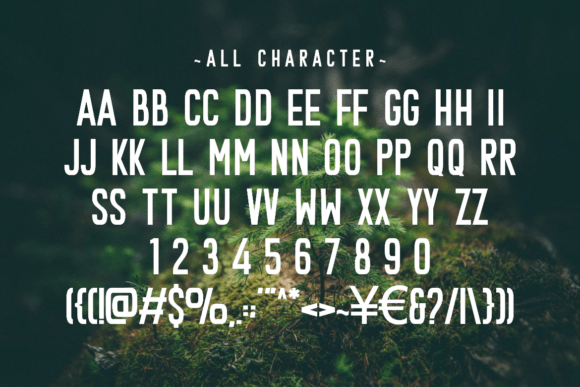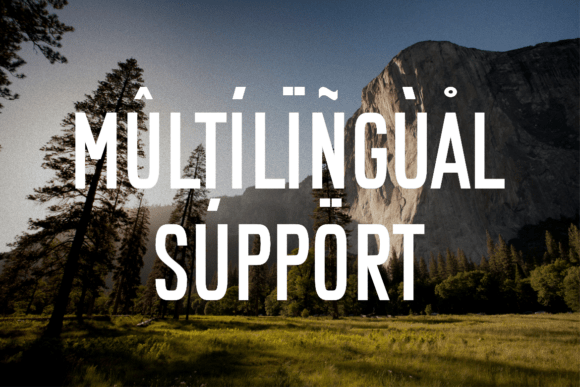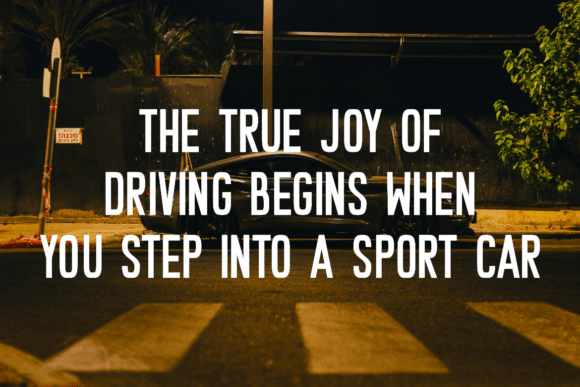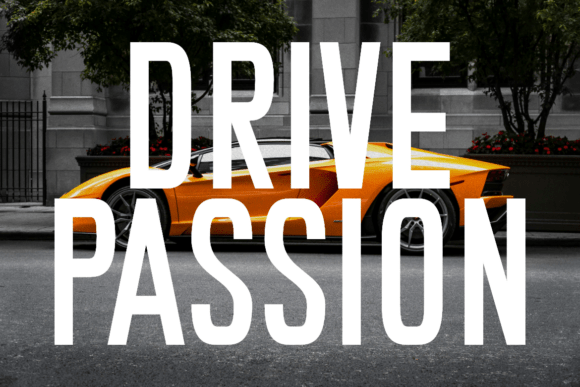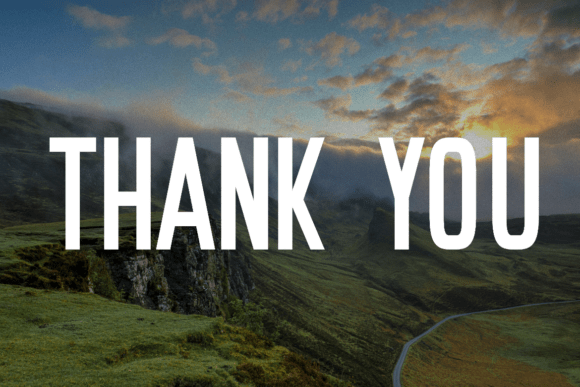
Introduction to Gozira Font
As designers, we’ve all been there – staring at a blank canvas, trying to convey the perfect message, and waiting for that ‘aha’ moment when everything comes together. For many of us, typography is the key to unlocking that visual magic. And when it comes to making a strong statement, the Gozira Font is an invaluable design resource.
With its modern sans-serif design, Gozira Font delivers clarity, style, and professional aesthetics, making it a high-quality choice for branding, packaging, editorial layouts, and social media graphics. Whether you’re working on a creative project that requires a bold statement or a minimalist approach, this font is the perfect companion.
Key Features of Gozira Font
- Unique and modern design, making it a valuable asset for designers and artists
- Perfect for use in logos, branding materials, and other creative projects requiring a clean and sophisticated font
Honest Review: Gozira Font
What I love about the Gozira Font is its high quality and versatility. It’s perfect for a wide range of creative projects, from logos to digital art. The font’s modern design and clean lines make it easy to use and customize.
- ✨ Customizable: The Gozira Font is highly customizable, making it perfect for designers who want to add a personal touch to their projects.
- ✨ Transparent background: The font’s transparent background makes it easy to use on any background, giving designers more flexibility when creating their designs.
While the Gozira Font is a great resource, I did encounter a few limitations. The font only comes in a limited range of weights, which may not be suitable for all design projects.
Overall, I’m impressed with the Gozira Font. Its high quality, versatility, and transparency make it a valuable addition to any designer’s library. While it may not be perfect, it’s definitely worth checking out for your next creative project.
- ⚠️ Limited range of weights
The Gozira Font is perfect for a variety of creative projects, including logos, brochures, business cards, and social media graphics. Its high-quality design makes it an excellent choice for presentations, infographics, and other visual communications.